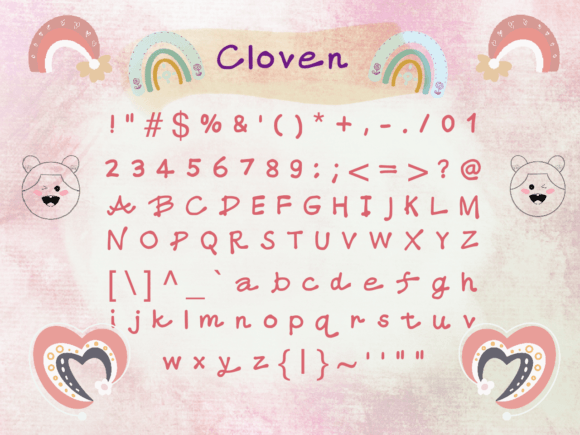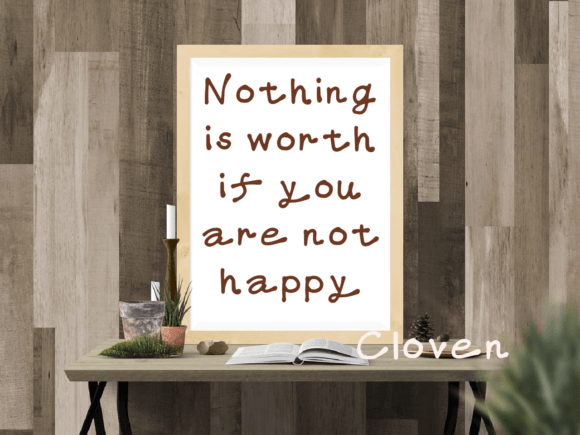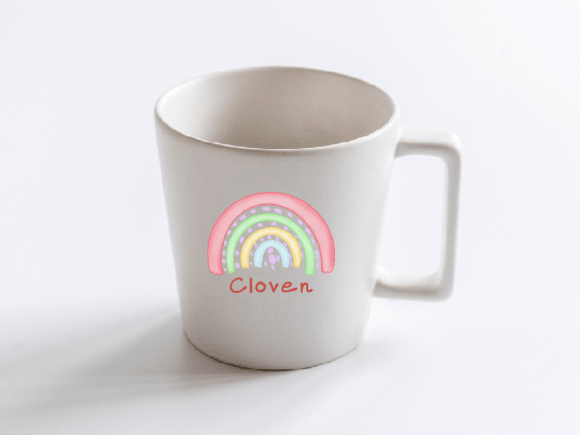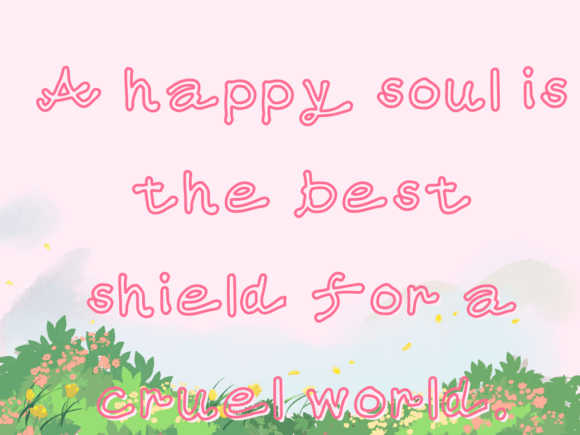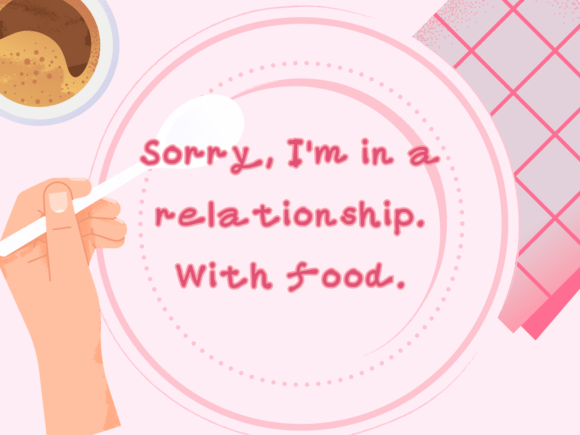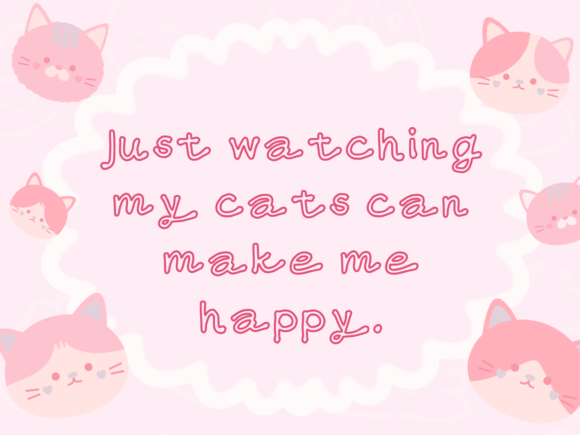
Introducing Cloven Font: The Ultimate Design Game-Changer
Are you tired of using the same old fonts in your designs? Look no further! Cloven Font is here to revolutionize your creative process with its unique charm and friendly vibe. This handwritten font is perfect for designers and crafters who want to add a personal touch to their work. In this article, we’ll dive into the world of Cloven Font and explore its features, benefits, and uses.
What is Cloven Font?
Cloven Font is a fun and friendly handwritten font that’s designed to make your designs stand out. Its unique charm and character make it perfect for a wide range of projects, from branding and advertising to packaging and digital media. Whether you’re a professional designer or a crafty DIY enthusiast, Cloven Font is sure to inspire your creativity.
Features of Cloven Font
- Handwritten style: Cloven Font has a beautiful, handwritten style that’s both playful and elegant.
- Unique charm: Each letter has its own unique character, making your designs truly one-of-a-kind.
- Easy to read: Despite its playful style, Cloven Font is easy to read and understand, making it perfect for body text and headlines.
- Versatile: Cloven Font can be used for a wide range of projects, from digital media to print materials.
Benefits of Using Cloven Font
So, why should you choose Cloven Font for your next project? Here are just a few benefits of using this amazing font:
- Adds personality to your designs: Cloven Font’s unique charm and character help to add personality to your designs, making them more engaging and memorable.
- Stand out from the crowd: With Cloven Font, you can create designs that truly stand out from the crowd and grab attention.
- Supports multiple languages: Cloven Font supports multiple languages, making it perfect for international designs.
Uses of Cloven Font
Cloven Font is versatile and can be used for a wide range of projects, including:
- Branding and advertising: Use Cloven Font to create eye-catching logos, posters, and advertisements that grab attention.
- Digital media: Cloven Font is perfect for social media graphics, blog posts, and website designs.
- Packaging: Add a personal touch to your product packaging with Cloven Font.
- Crafting and DIY projects: Cloven Font is perfect for crafty DIY enthusiasts who want to add a personal touch to their projects.
Tips for Using Cloven Font
Here are a few tips for using Cloven Font to get the most out of this amazing font:
- Experiment with different sizes and colors: Cloven Font looks great in a variety of sizes and colors, so don’t be afraid to experiment and find the perfect combination for your design.
- Pair with other fonts: Cloven Font pairs well with other fonts, so try combining it with a sans-serif font for a unique look.
- Use it consistently: Use Cloven Font consistently throughout your design to create a cohesive look and feel.
| Font Name | Cloven Font |
| Author | Pukka De |